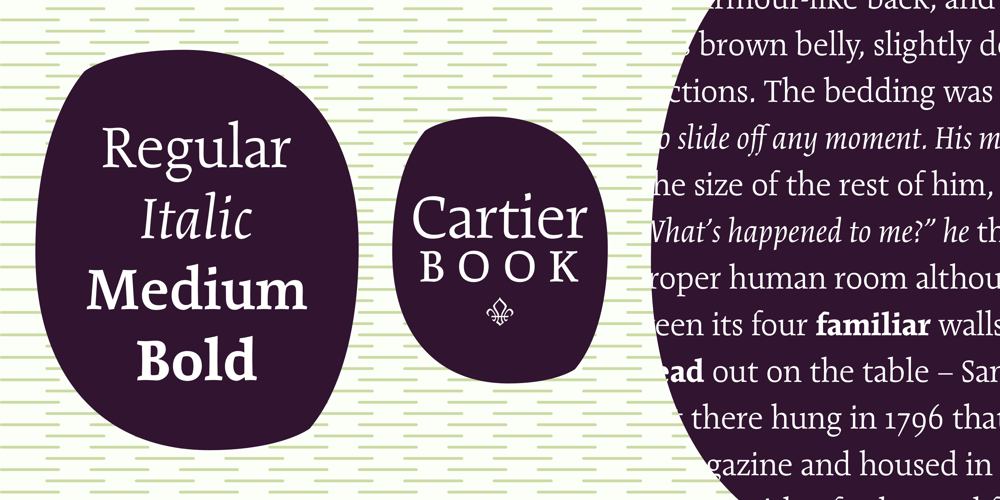
Cartier Book Font Family was designed by Carl Dair, Rod McDonald and published by Monotype. Cartier Book contains 4 styles and family package options. Cartier was Canada’s first roman text typeface, created in 1967 to celebrate Canada’s centennial. Its designer, Carl Dair, was one of the country’s most celebrated graphic design pioneers, and a fine designer indeed — but he was not a trained type designer. He had spent a year at the Enschedé type foundry and printing works in the Netherlands, but that probably wasn’t enough to fully grasp all that was required to make an effective text face. It is also possible that Dair simply compromised his own design by not allowing any of the much needed alterations to be made to his working drawings when they were handed over to Linotype for production. Cartier, though a strikingly original oldstyle, never became the influential allround text face it might have been. A display typeface derived from it, Raleigh, was more successful. Realizing that Dair’s design was sound in concept, if not in execution, Rod McDonald began working on a new digital version in 1997. The final family is convincing proof that Cartier could have been the functional text face that Dair originally wanted.